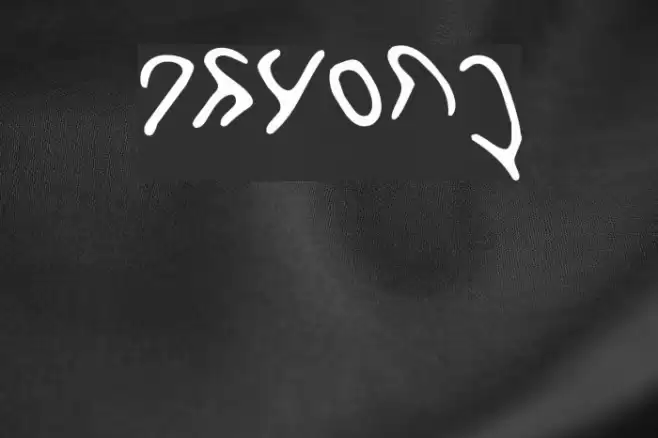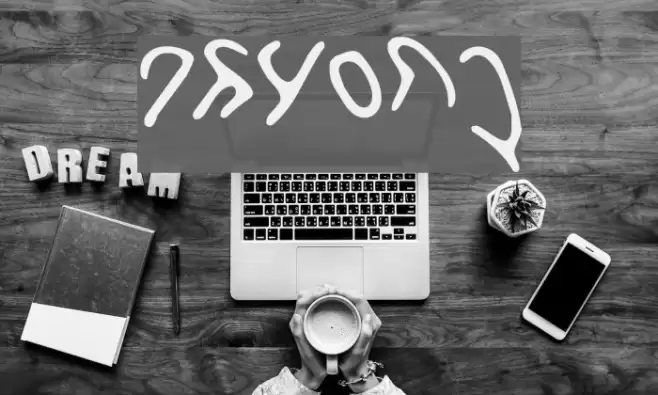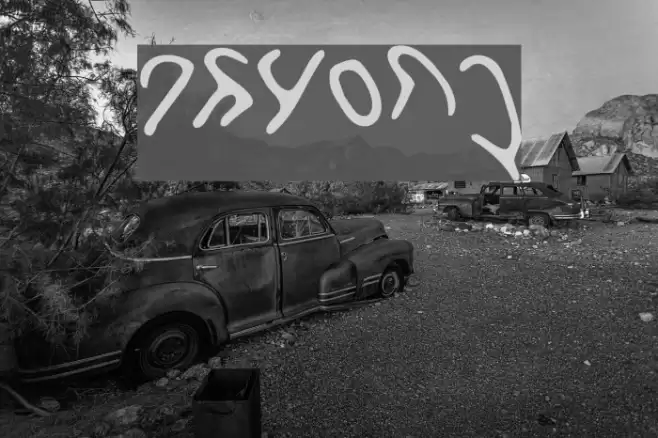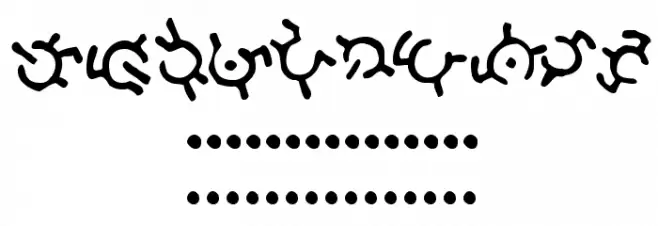
Mexlar Font
Mexlar Description
A highly stylized, decorative script with abstract, calligraphic letterforms that resemble ancient or fantasy writing systems. The strokes are bold and fluid, with irregular curves and angles, giving it a mysterious and otherworldly appearance.
Decorative, fantasy-inspired script with bold, abstract forms from Uncategorized fonts.
- Proposed Projects: Fantasy games, movie titles, book covers, posters, themed events, or any project needing a mystical or ancient look.
- Overall Style: Decorative, Fantasy, Mysterious
- Use Case: Logos, Headlines, Posters, Themed Graphics